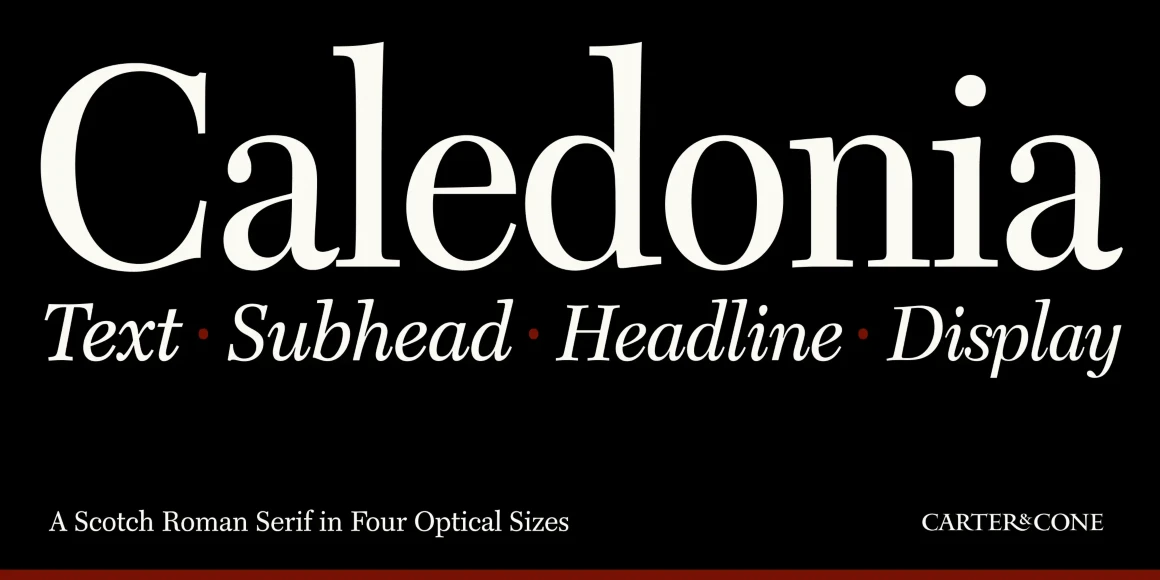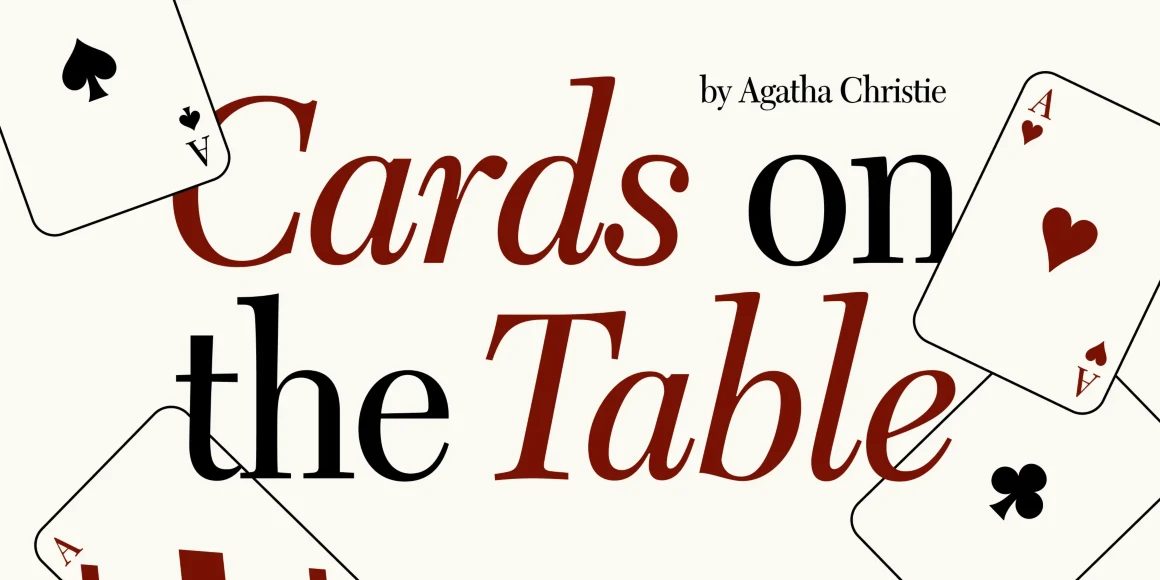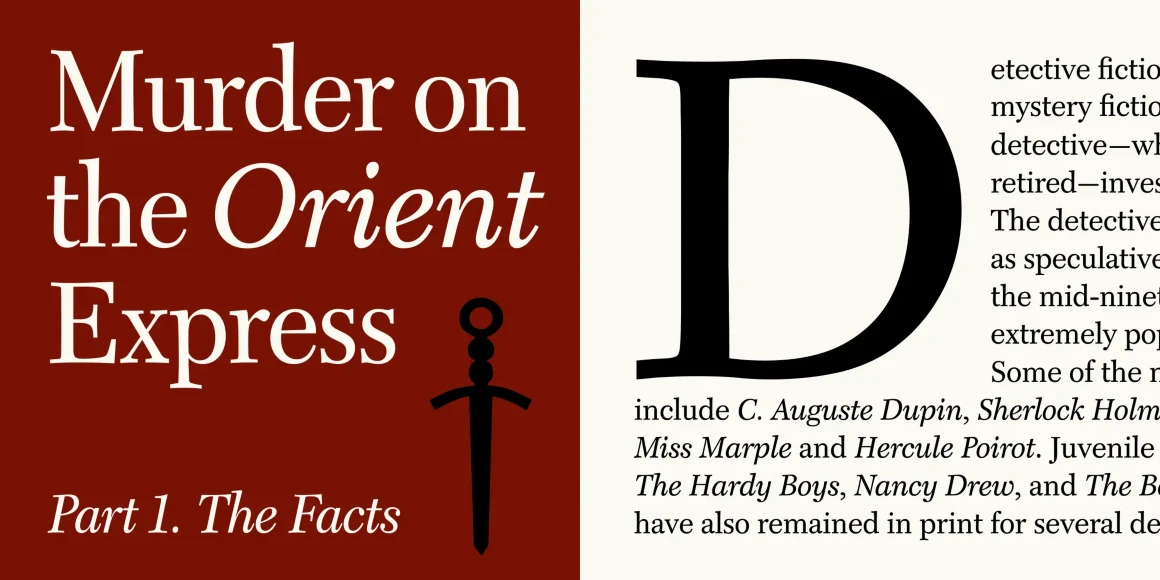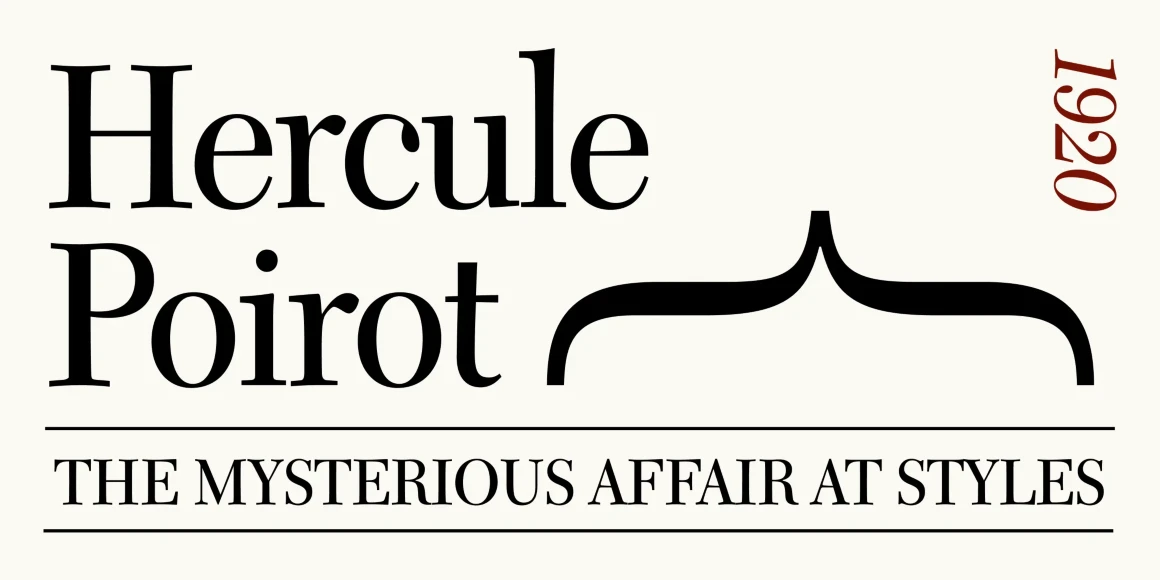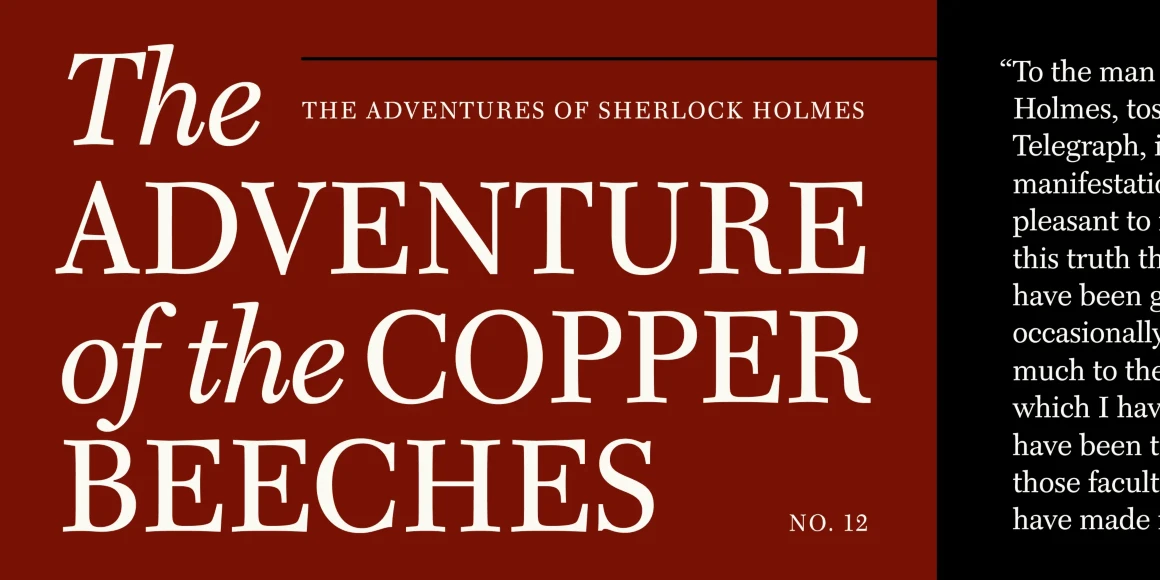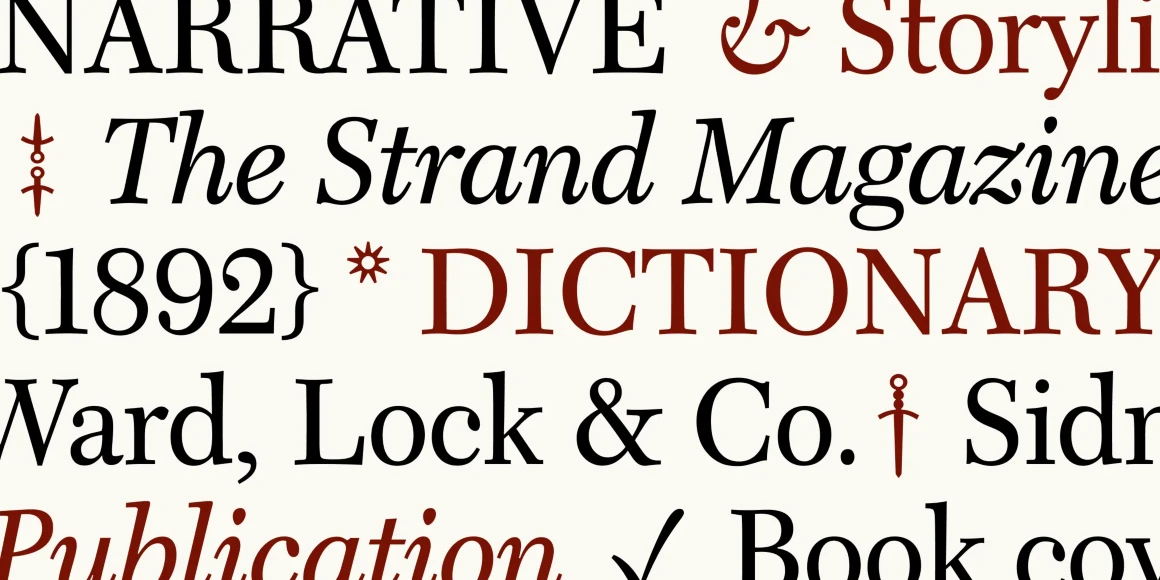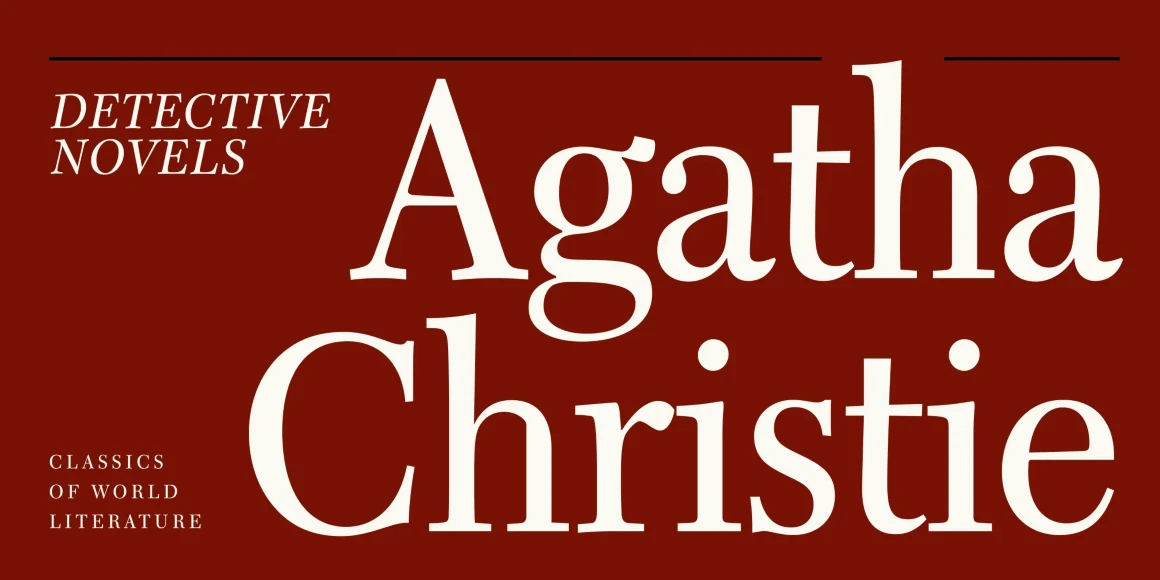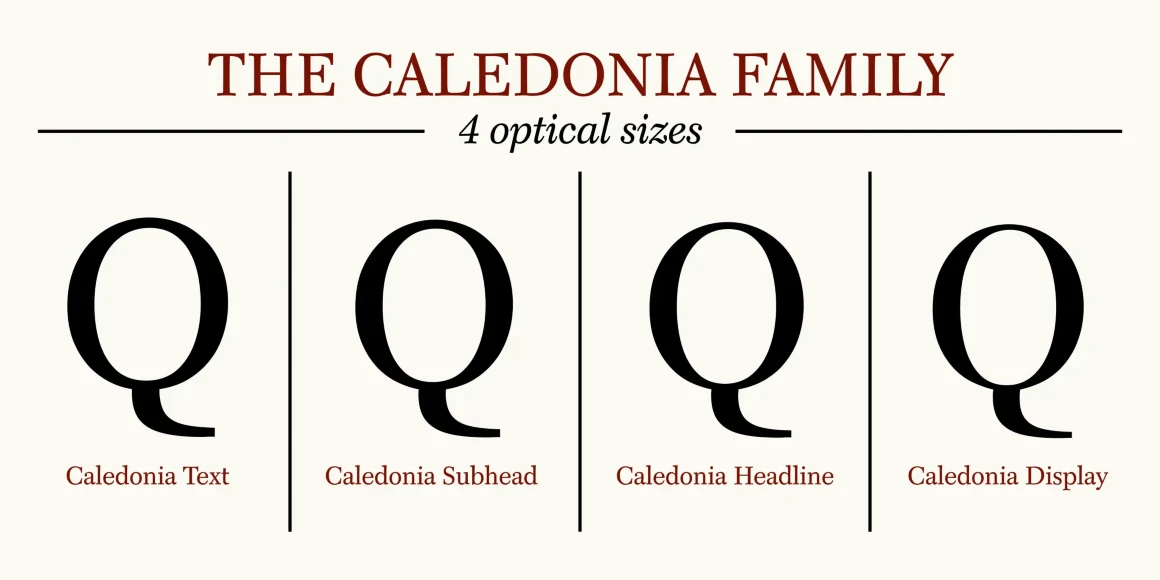
Caledonia CC
From Carter & Cone
Caledonia CC is Matthew Carter’s rendition of William Addison Dwiggins’ Scotch Roman serif. Originally adapted for Time magazine from Linotype’s 9-point drawings, it preserves the refined details, sturdy rhythm, and typographic clarity that made the original so effective. Available in Regular and Italic with 4 optical sizes — Display, Headline, Subhead, and Text. Caledonia CC is well-suited for magazines, newspapers, and long-form reading, where readability will be delivered with style.
Designed by Matthew Carter, Richard Lipton & Jill Pichotta